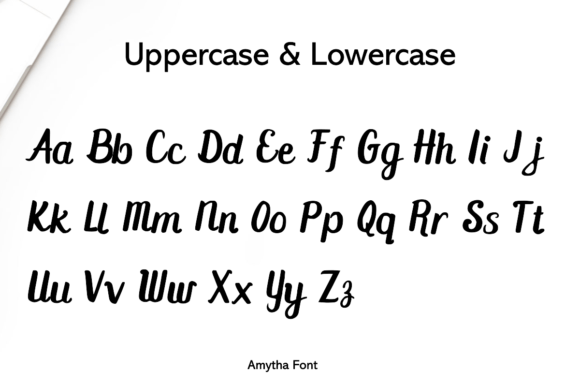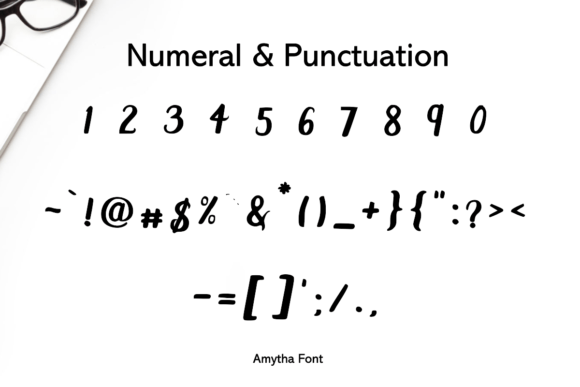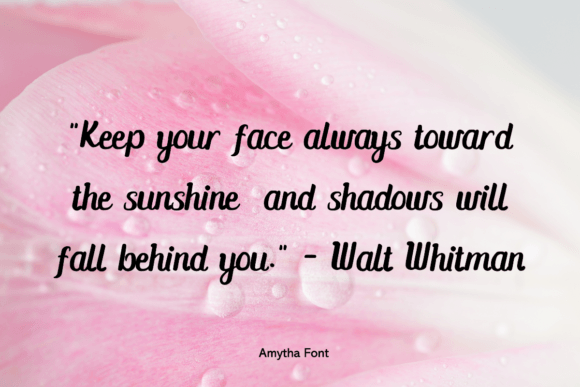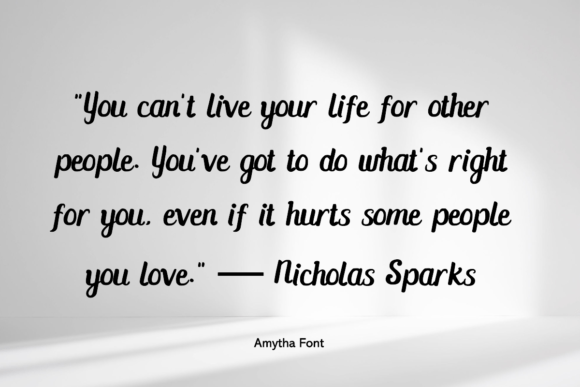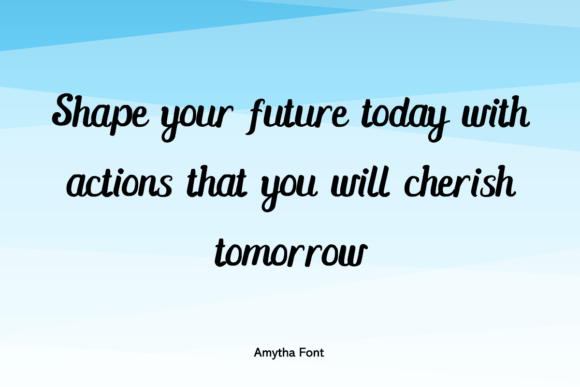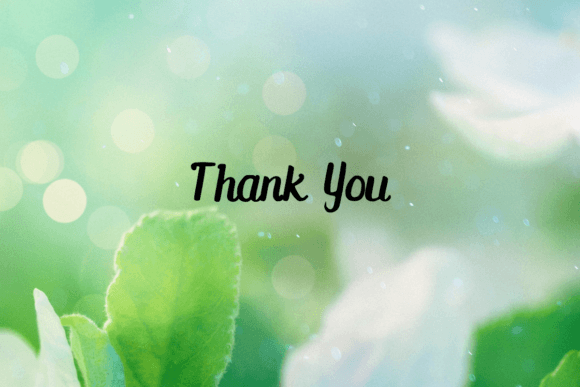
Amytha Font: Elevate Your Designs with Modern Elegance
In the world of typography, fonts play a crucial role in conveying the tone and personality of a design. For designers and crafters seeking a modern, yet elegant look, Amytha font is an excellent choice. This beautiful handwritten font seamlessly blends simplicity with sophistication, making it perfect for a wide range of design projects.
Introducing Amytha: A Modern Handwritten Font
Amytha is a contemporary handwritten font that exudes elegance and refinement. Its clean lines, unadorned style, and flowing curves create a sense of fluidity and movement, making it ideal for designs that require a touch of personal sophistication. Whether you’re working on a branding project, creating wedding stationery, or designing a website, Amytha font is sure to impress.
Key Features of Amytha Font
• Clean and Simple Design: Amytha’s minimalist approach makes it easy to read and versatile for various design applications.
• Elegant and Refined: The font’s flowing curves and smooth lines add a touch of sophistication to any design.
• Handwritten Style: Amytha’s handwritten feel adds a personal touch to designs, making them more relatable and engaging.
• Modern and Trendy: The font’s contemporary look ensures that your designs stay fresh and up-to-date.
Amytha font is an excellent choice for various design projects, including:
• Branding and Logo Design: Create a lasting impression with Amytha’s elegant and sophisticated look.
• Wedding Stationery: Add a touch of romance and elegance to your wedding designs with Amytha’s beautiful handwritten style.
• Web Design: Use Amytha font to create a modern and visually appealing website that reflects your brand’s personality.
• Social Media Graphics: Elevate your social media presence with Amytha’s clean and elegant design.
• Packaging Design: Make your products stand out with Amytha’s unique and eye-catching font.
Why Choose Amytha Font?
With so many fonts available, why choose Amytha? Here are a few reasons:
• Unique and Versatile: Amytha’s modern handwritten style sets it apart from other fonts, making it perfect for a wide range of design projects.
• Easy to Read: The font’s clean design ensures that your text is easy to read, even at small sizes.
• High-Quality Design: Amytha font is designed with precision and attention to detail, ensuring a professional look and feel.
Tips for Using Amytha Font
To get the most out of Amytha font, follow these tips:
• Pair with Other Fonts: Combine Amytha with other fonts to create a unique and visually appealing design.
• Experiment with Colors: Try different colors and textures to add depth and interest to your design.
• Use for Headings and Body Text: Amytha font is suitable for both headings and body text, making it a versatile choice for various design projects.
Amytha font is a beautiful and elegant handwritten font that can elevate your designs to the next level. Its modern and refined look makes it perfect for a wide range of design projects, from branding and logo design to wedding stationery and web design. With its clean lines, unadorned style, and flowing curves, Amytha font is sure to impress designers and crafters alike.